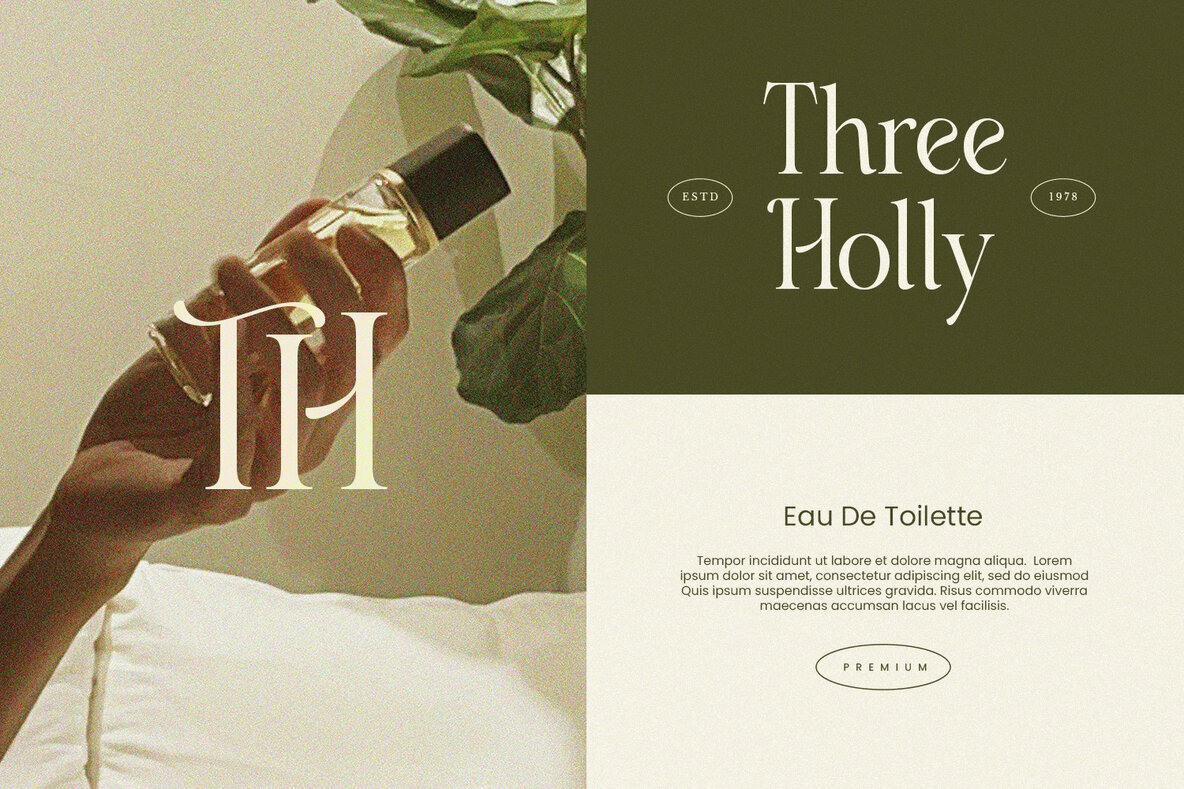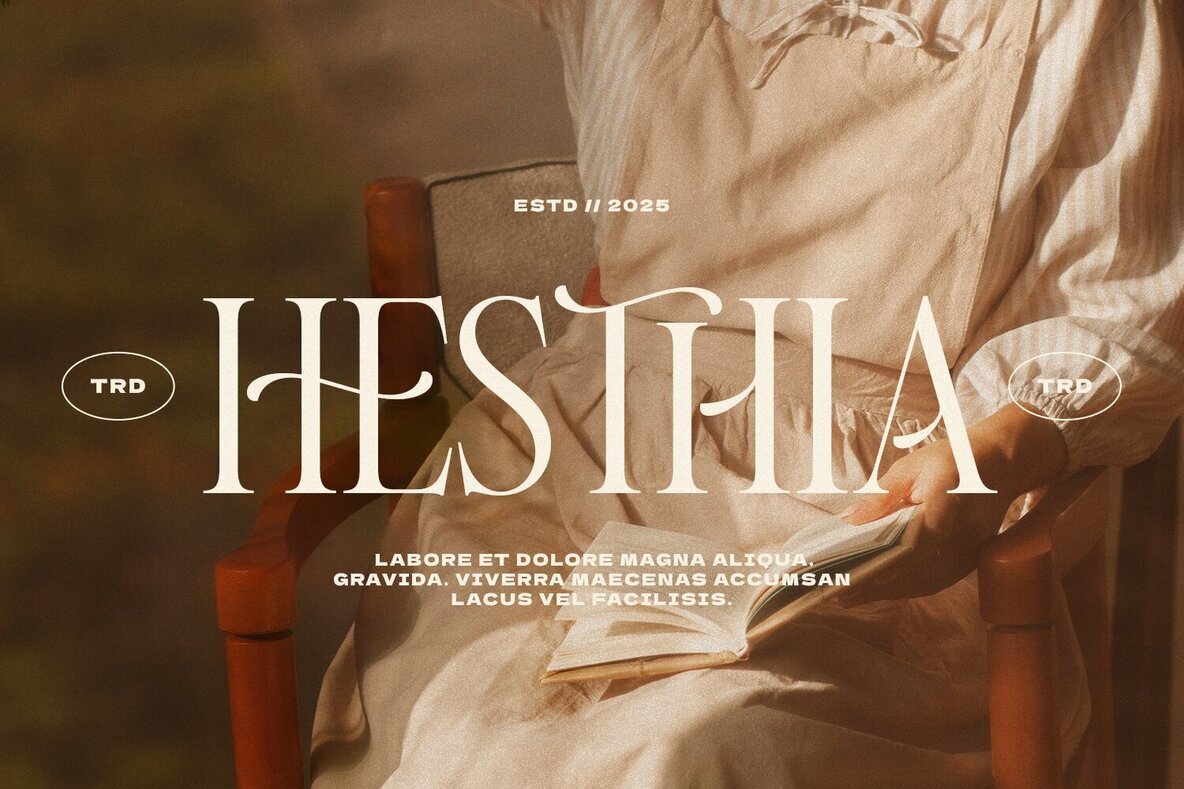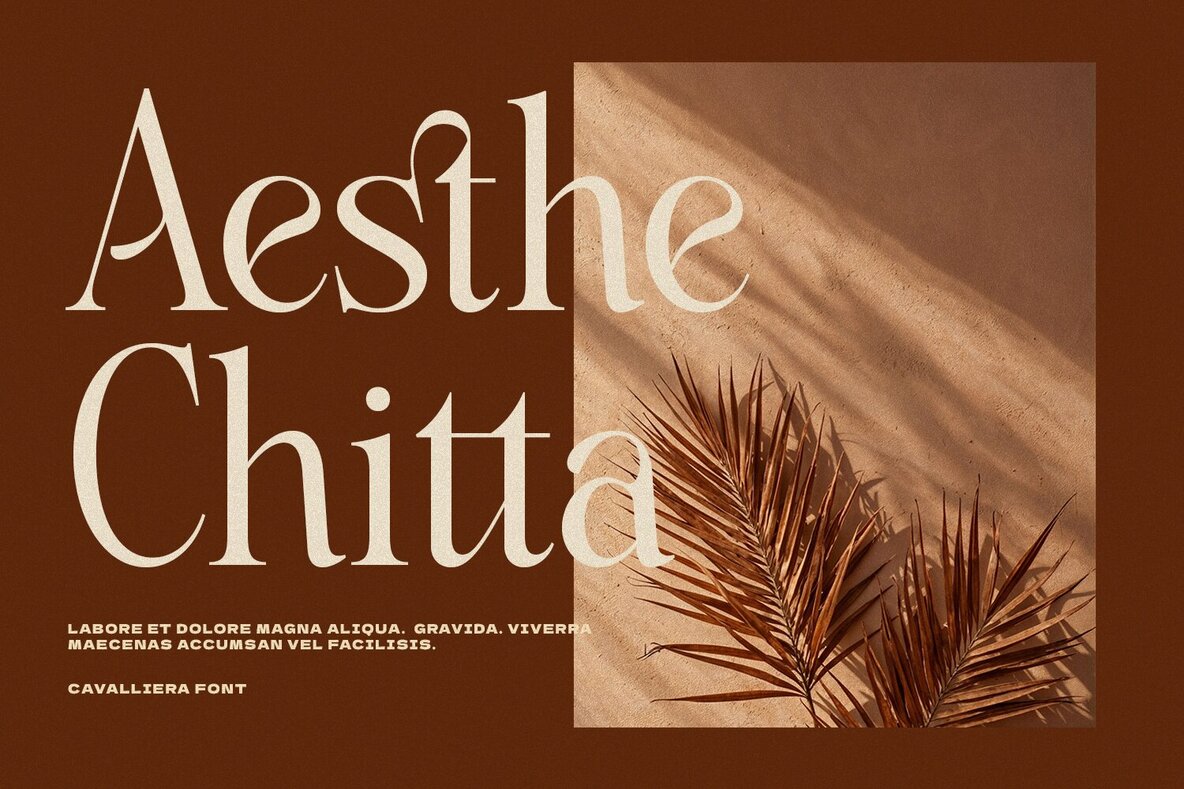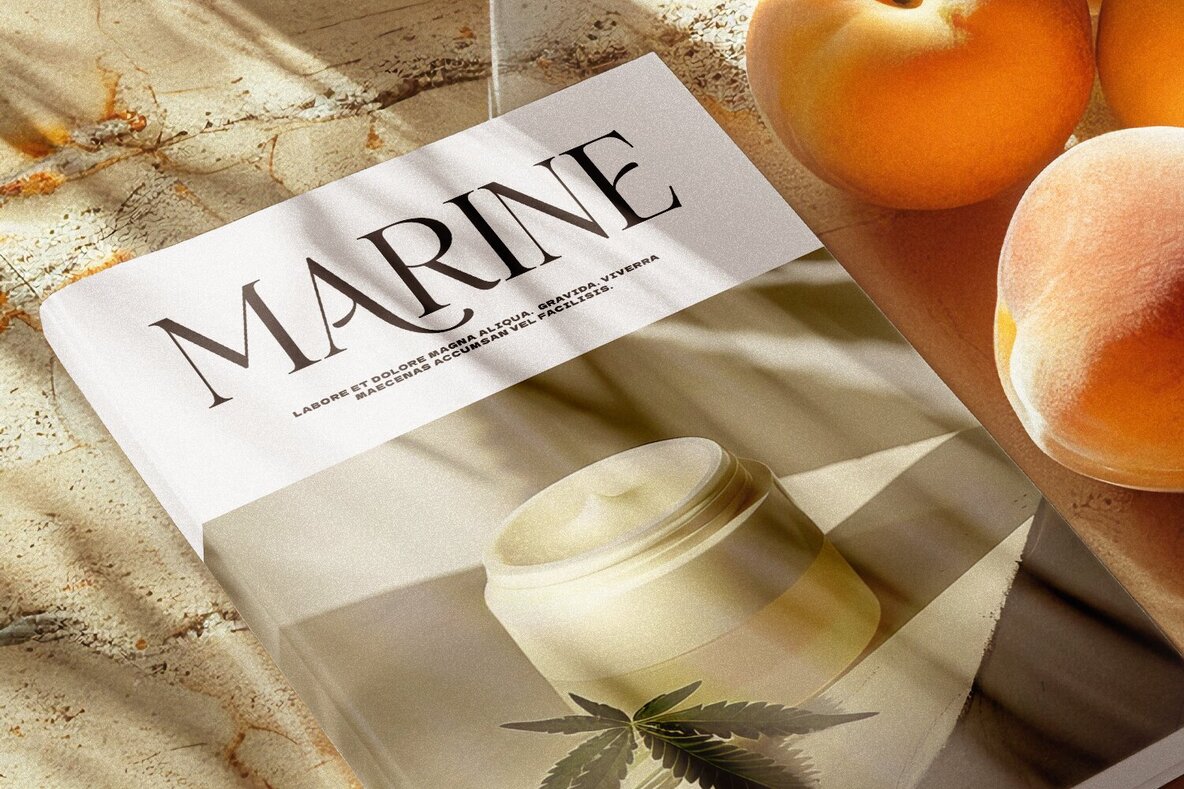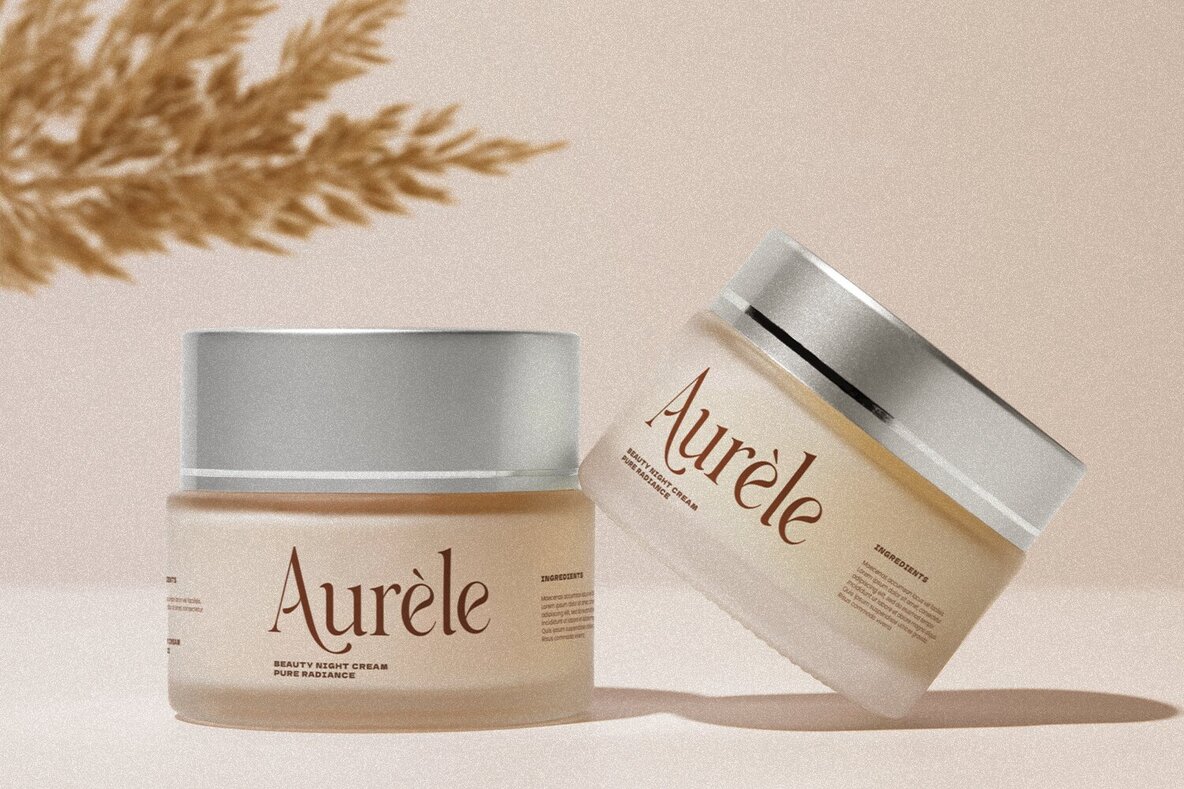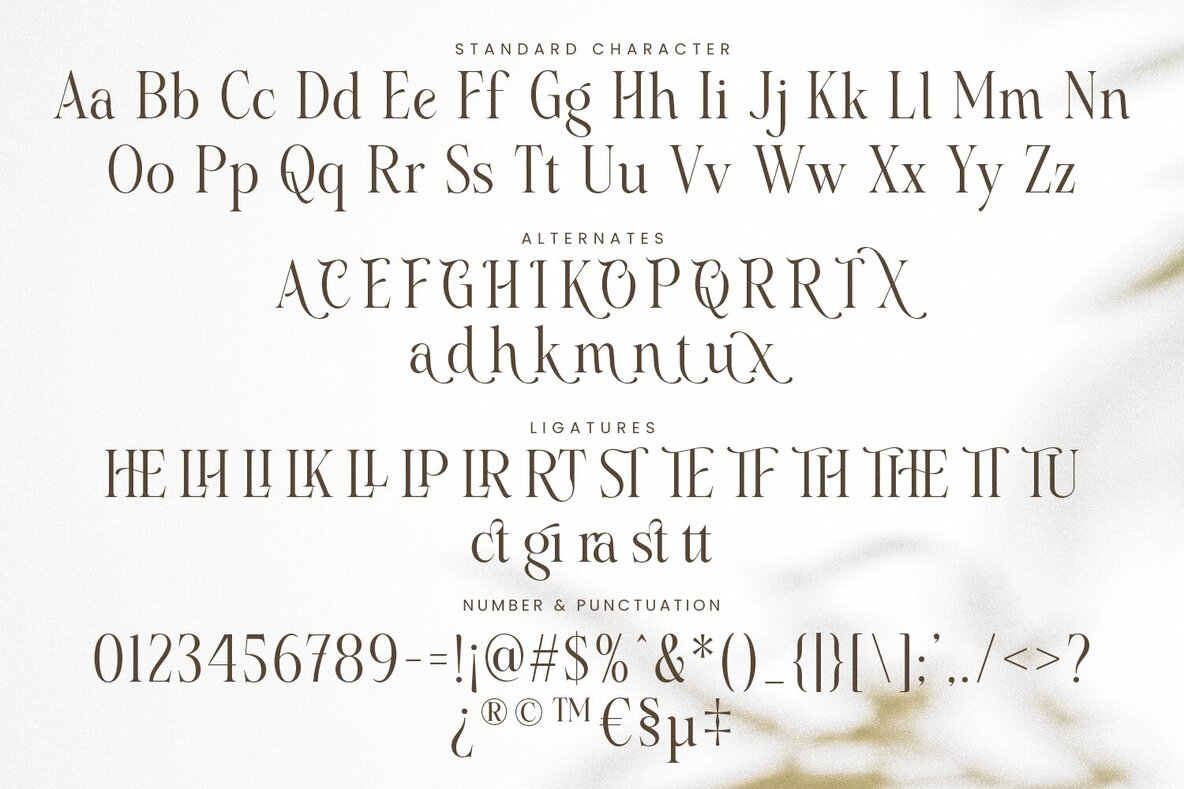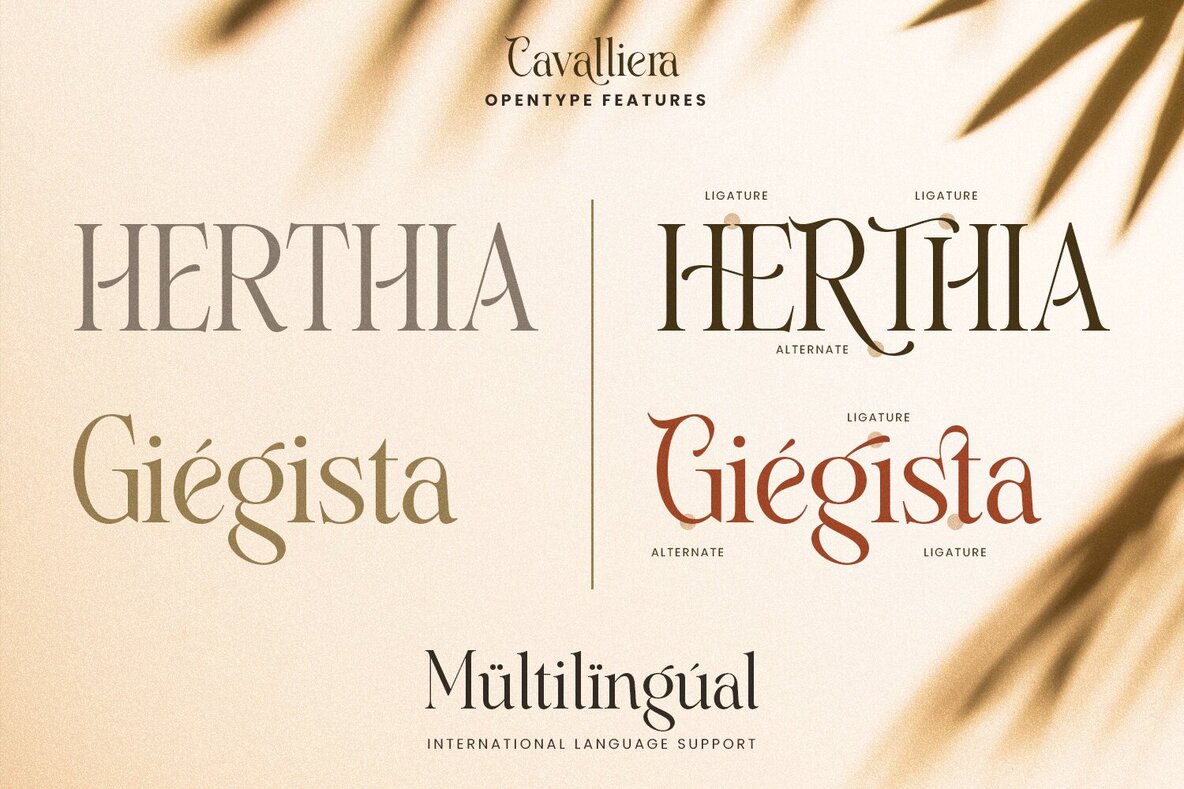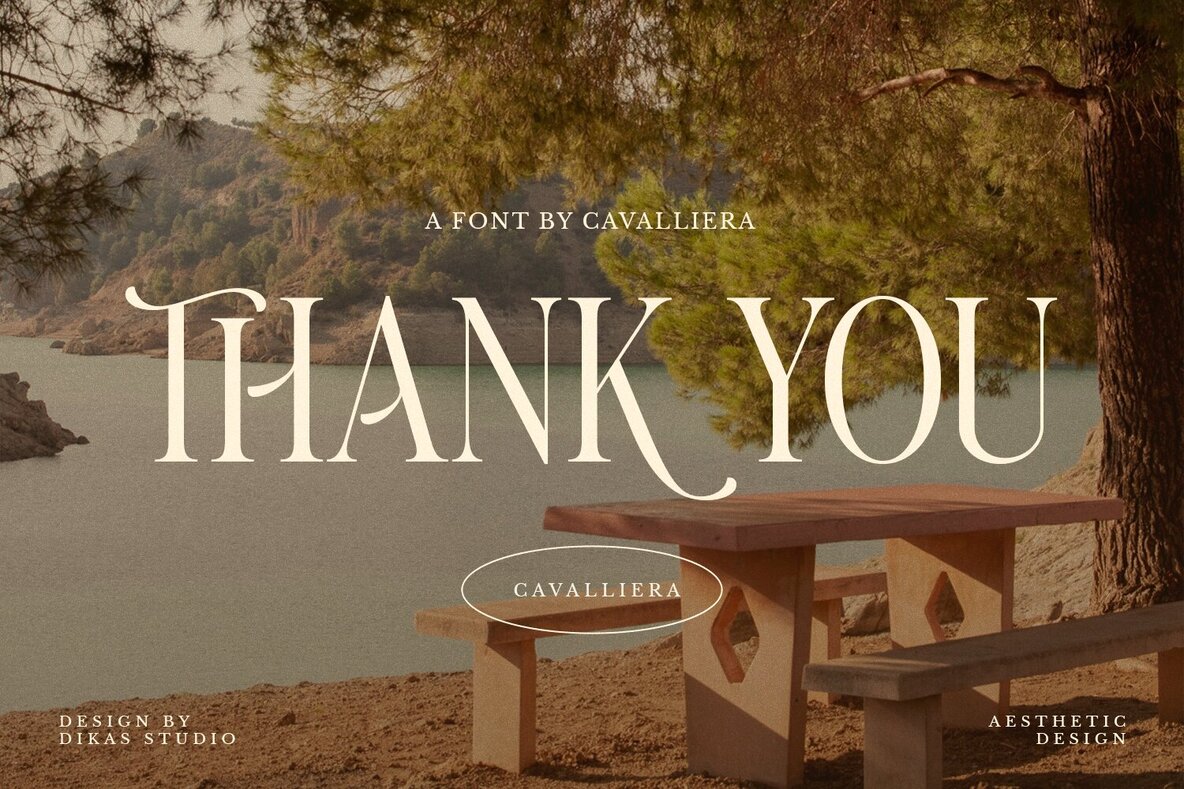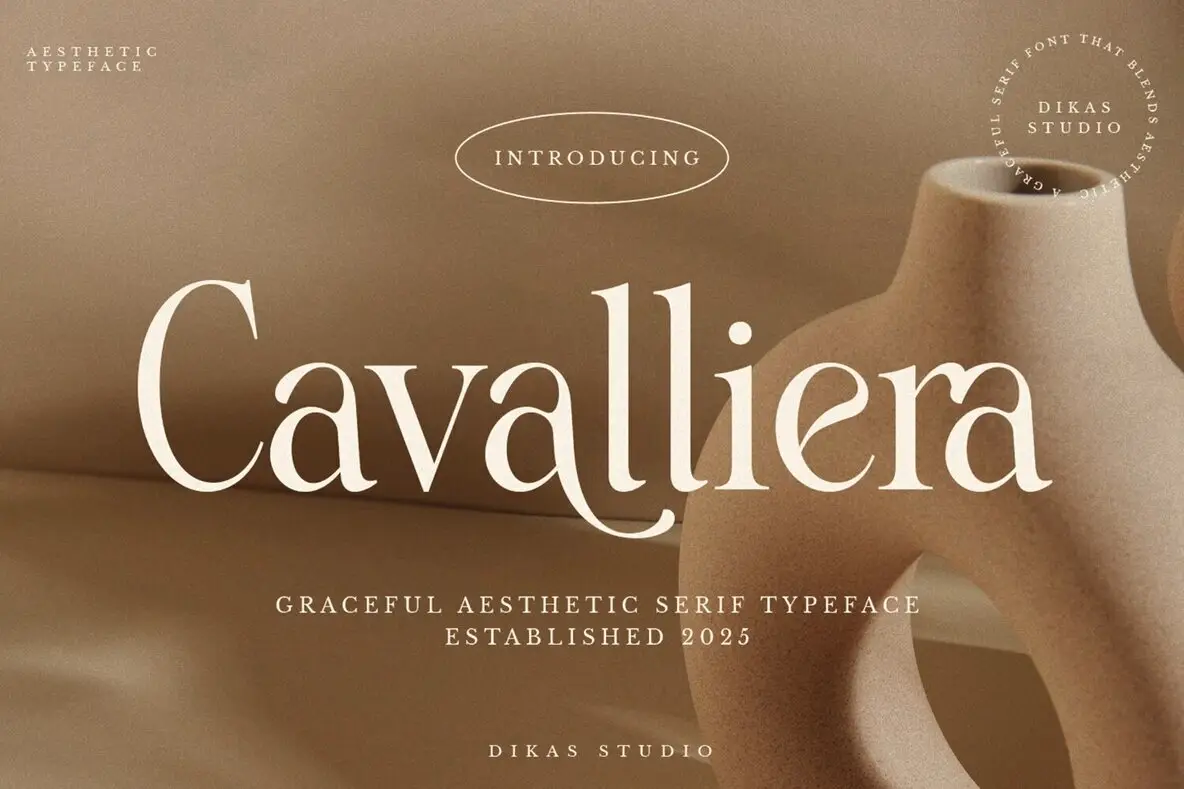
Cavalliera Font
Cavalliera Regular
Cavalliera is a graceful serif font that embodies elegance and beauty across its letterforms. Skillfully crafted with meticulous detail, it offers an array of alternate characters and stylish ligatures, enhancing the aesthetic appeal of your typography. Ideal for branding, editorial pieces, wedding designs, or luxurious packaging, Cavalliera infuses projects with a sophisticated allure and classic charm.Cavalliera: Elegant Serif with Timeless Charm